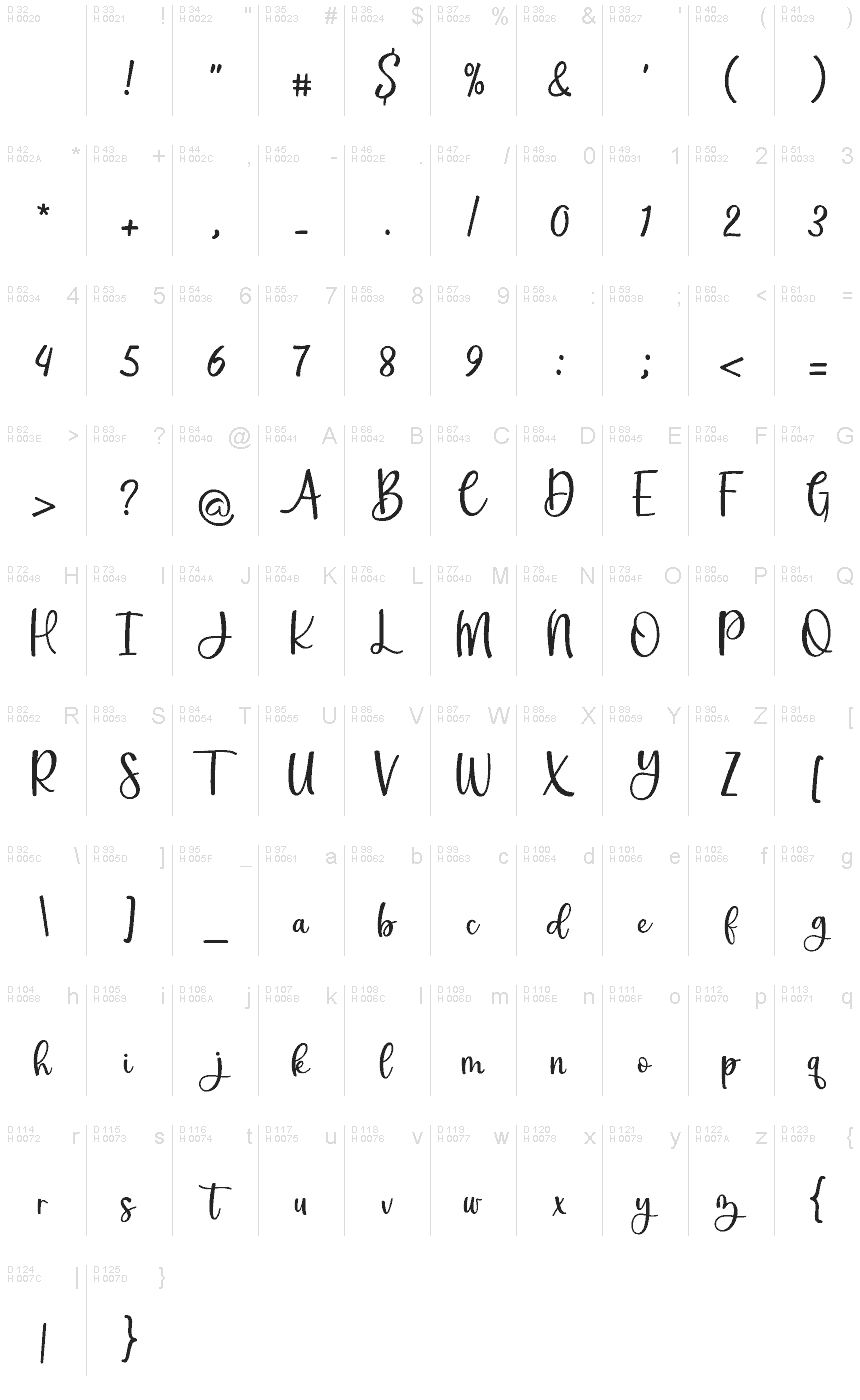
JumpsuitDolostone
Jumpsuit Dolostone font, created by UI Creative, is a free handwritten font with casual elegance and a flowing structure. Its artistic touch and expressive personality make for both an engaging reading experience or brief viewing session whether in short phrases or text-heavy projects.
This elegant font gives off a signature feel to any project it’s included in. It can be used for business cards and professional branding designs, advertisements, magazine covers, invitations, typography art, social media posts/stories/ads, book coversand all sorts of packaging printing. Jumpsuit Dolostone can even be used for movies/series intro titles and end credits.